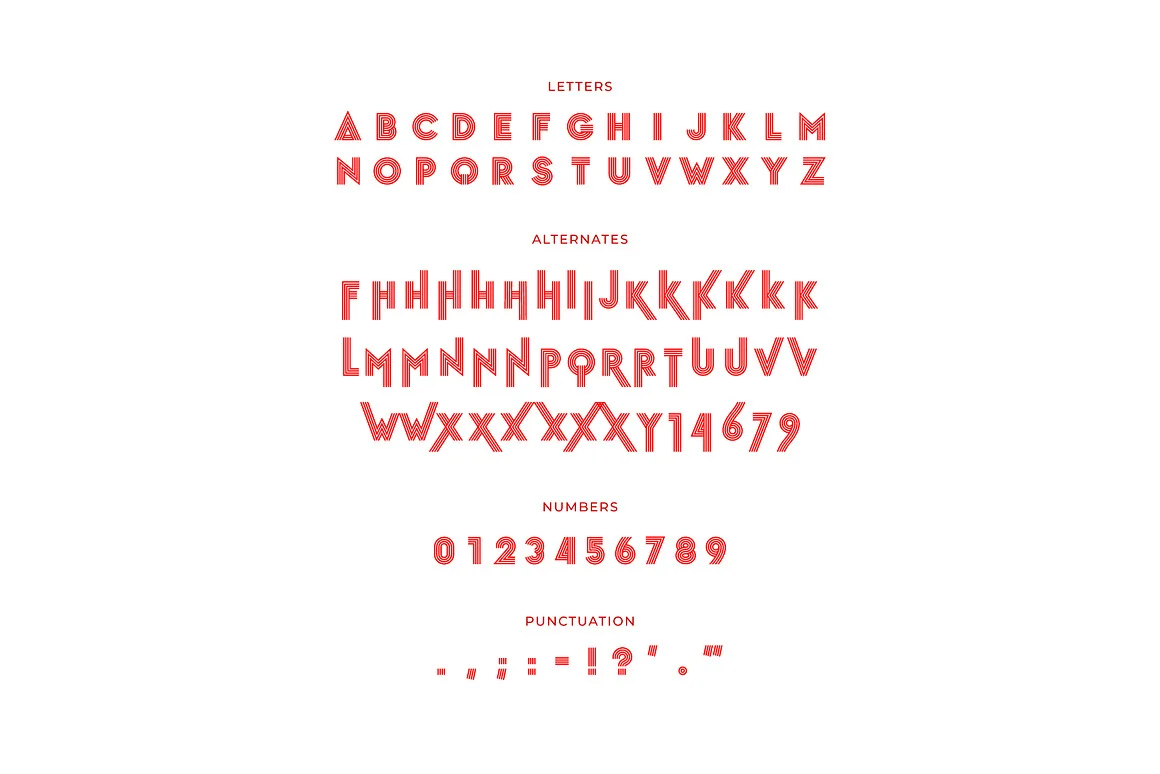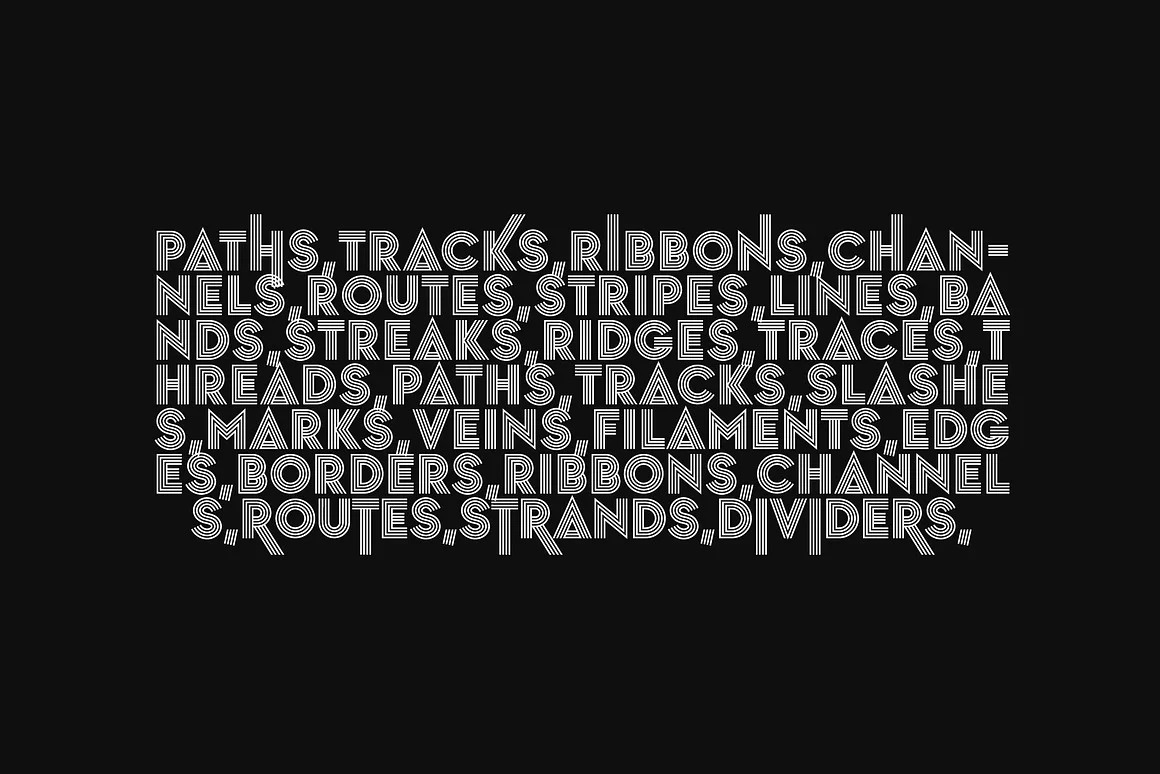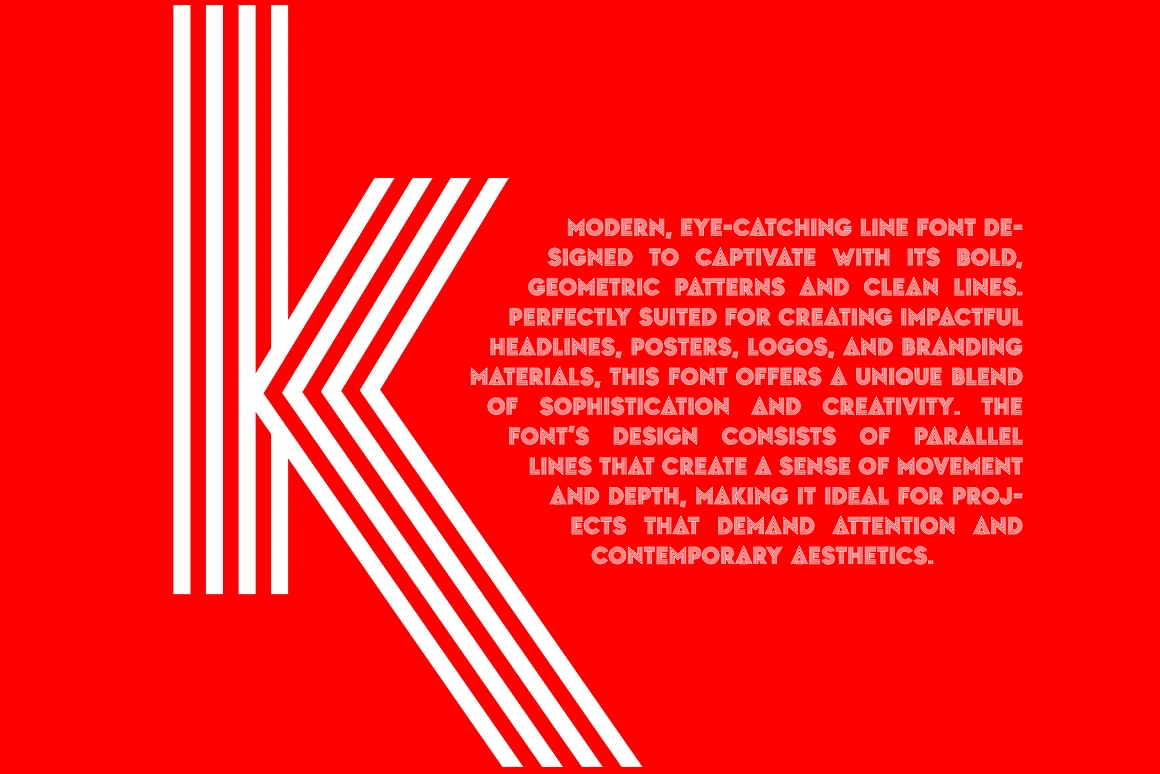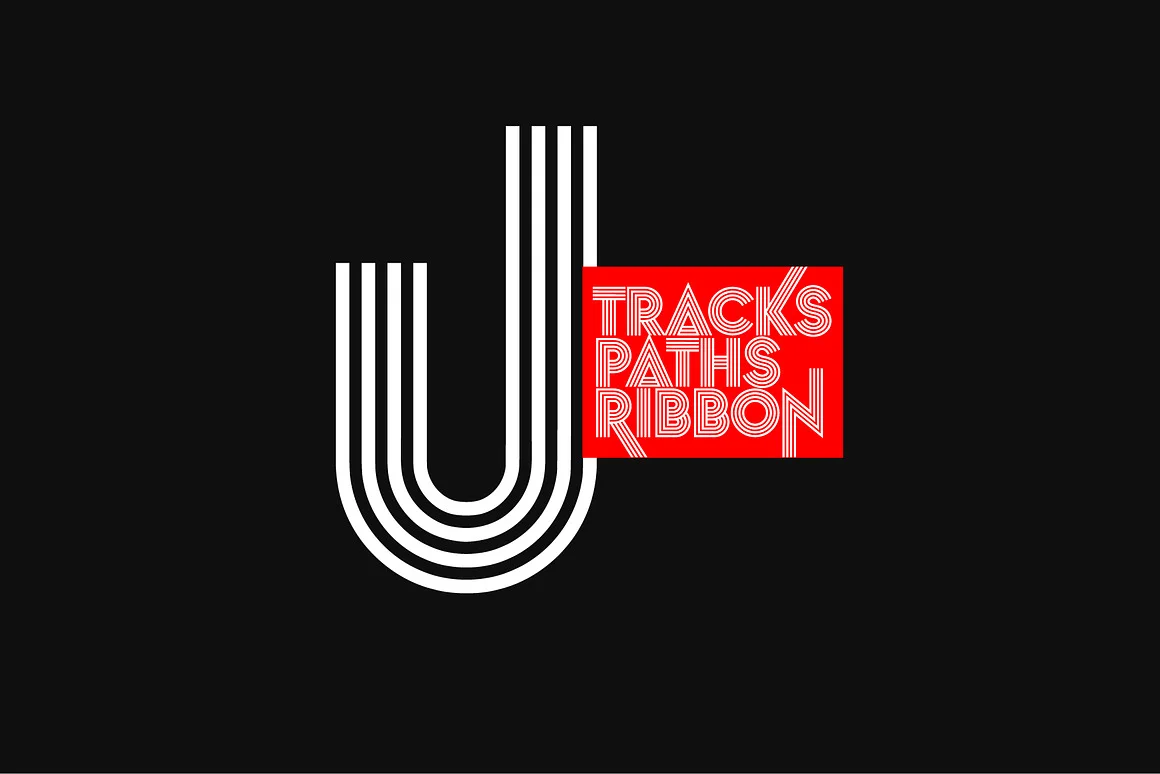
Striped Headline Font
Few typefaces manage to balance versatility across print and screen contexts with genuine day-to-day practicality. Striped Headline is one of them. The typeface brings a bold, impact-first sensibility to a broad range of creative disciplines, with strong typographic hierarchy support that holds up whether the work is print-first or screen-first.
In practice, Striped Headline proves particularly effective for event branding, street murals, packaging design, web design, logo design. Designers reaching for it find that the type decisions feel resolved rather than laboured — a useful quality when client timelines are tight.
The range of applications extends to signage systems, theatrical programmes, sports branding, editorial layouts. That breadth is deliberate: the proportions and spacing were stress-tested across a wide range of mock briefs before the typeface was finalised.
The counters are drawn larger than conventional text faces, ensuring that each letterform reads as a distinct, confident shape from a distance. Optical adjustments correct the tendency of high-contrast strokes to appear uneven when viewed at display sizes.
Pairing Striped Headline with a contrasting serif or a neutral grotesque gives mixed-format layouts a clear visual grammar without requiring constant size adjustments to establish hierarchy.
Freelance designers across print and digital disciplines find Striped Headline a reliable choice for projects that demand both personality and restraint. The design avoids the self-conscious quirkiness that dates quickly, settling instead for considered distinctiveness that holds up over time.